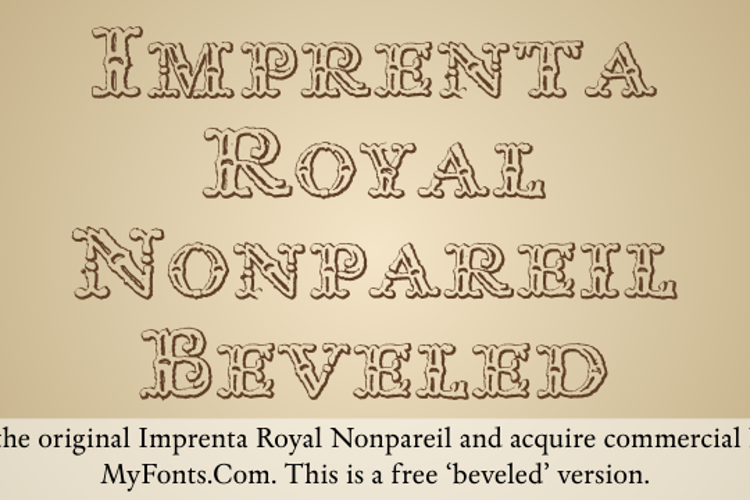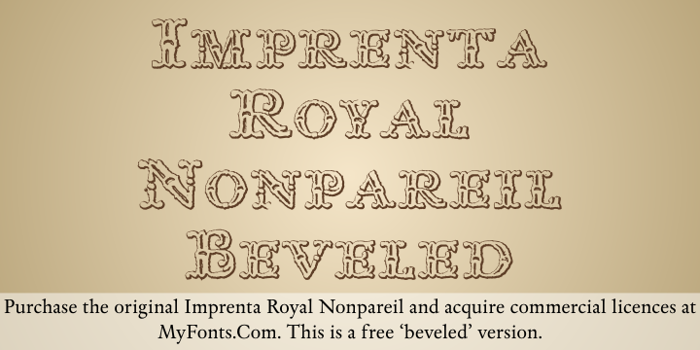
Imprenta Royal Nonpareil Font
Imprenta Royal Nonpareil Trash Style
Imprenta Royal Nonpareil Beveled and Imprenta Royal Nonpareil Trash, by Intellecta Design
THE ORIGINAL FONT
Imprenta Royal Nonpareil is the Intellecta’s version of “Nonpareil”, an ancient font founded in the rare book “Muestras de los Punzones y Matrices de Letra que se funde en el Obrador de la Imprenta Real, Madrid, Ano de 1799”. The original sample has only 33 letters. That letters were the start to this enhanced version with 223 gliphs. These kind of letters were used, in those times, for head-lines and titling.